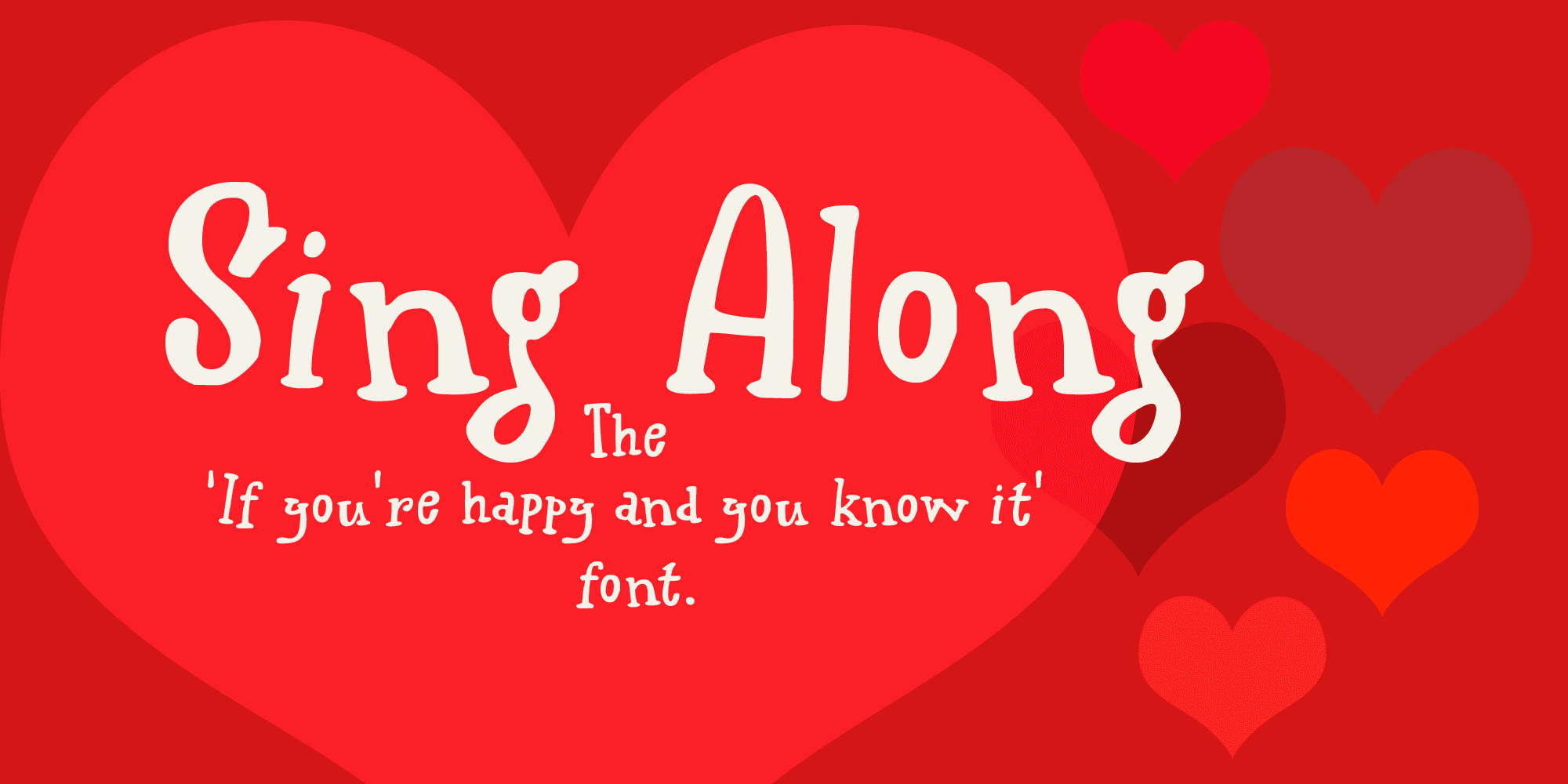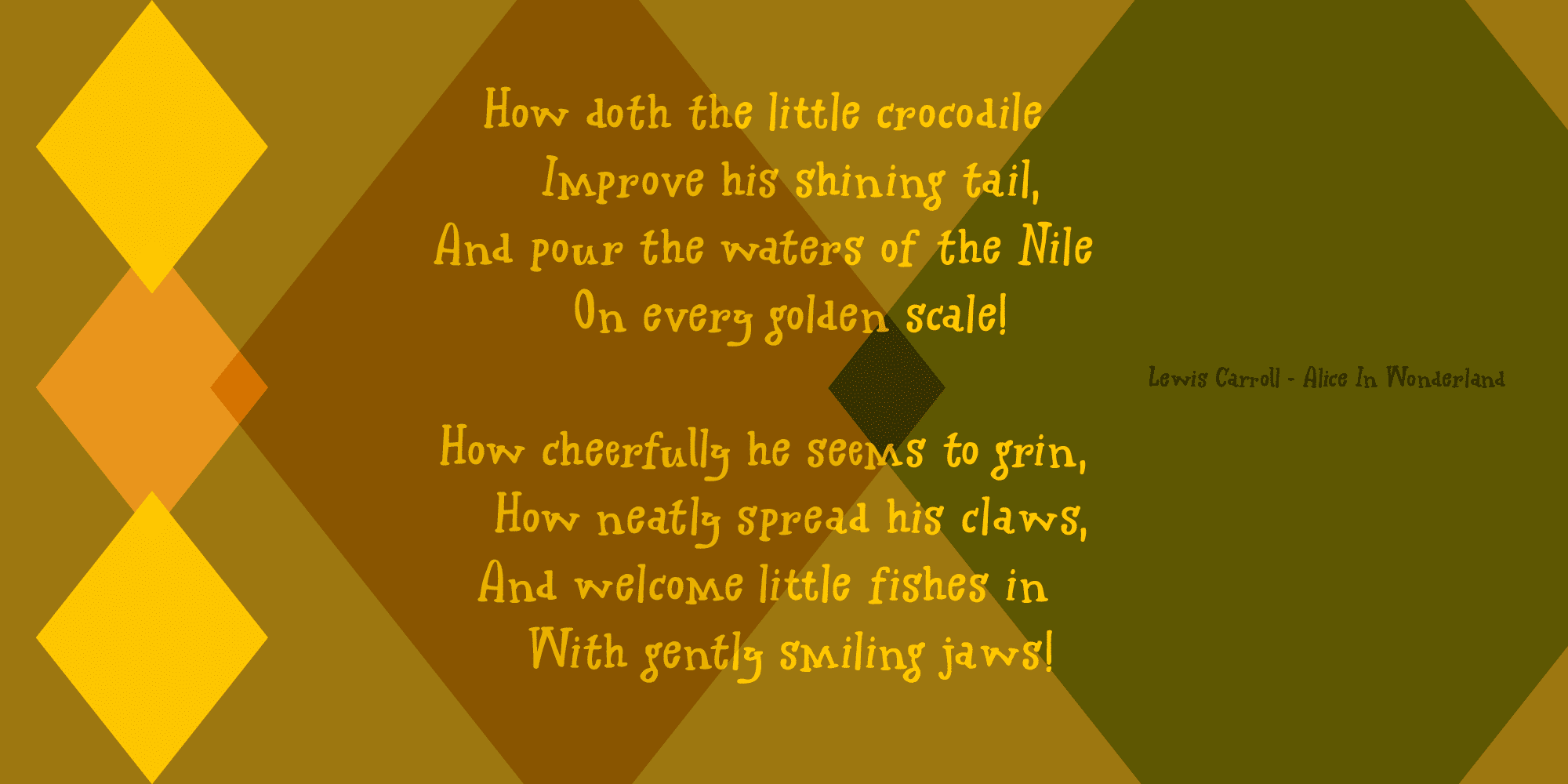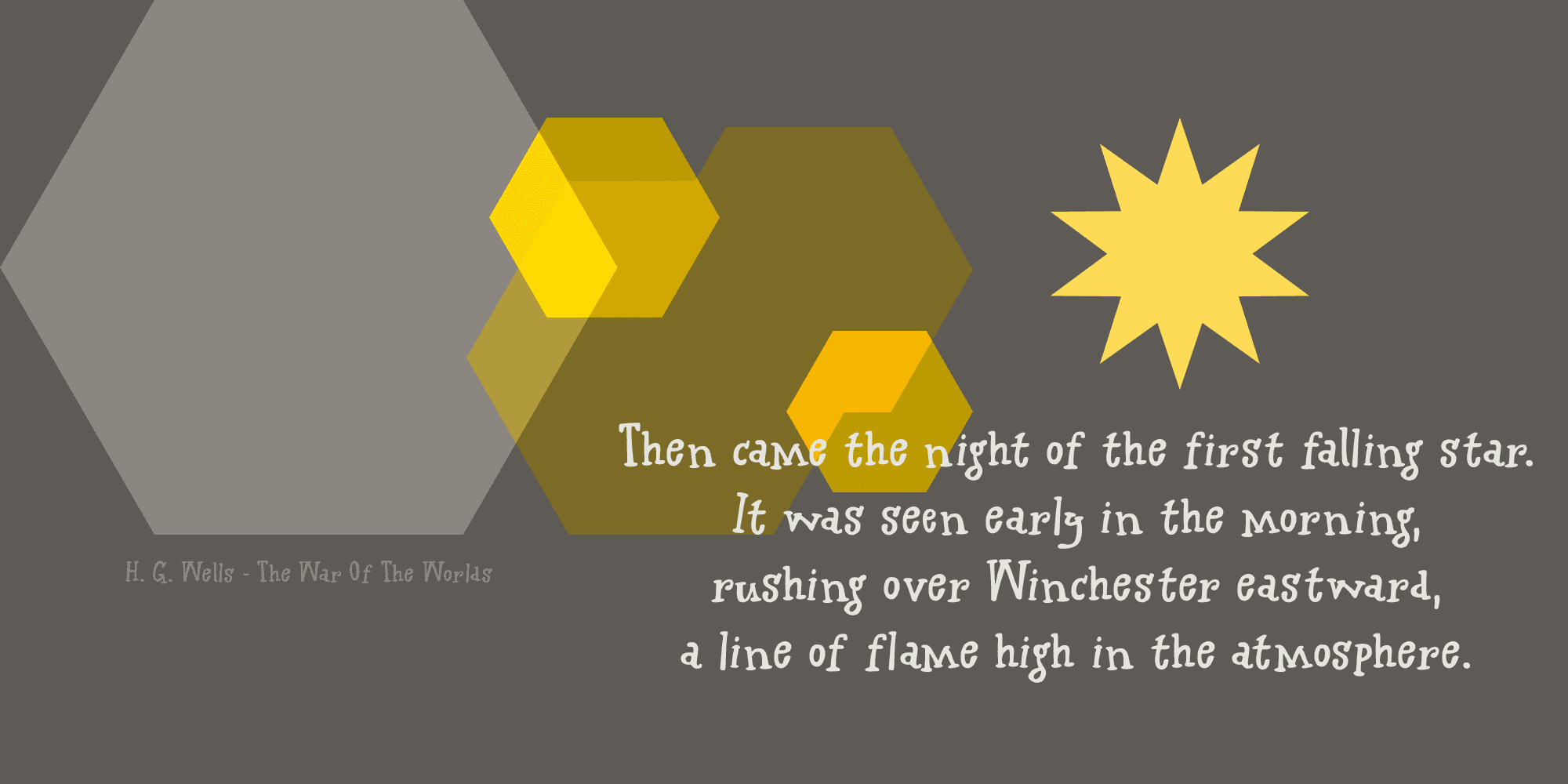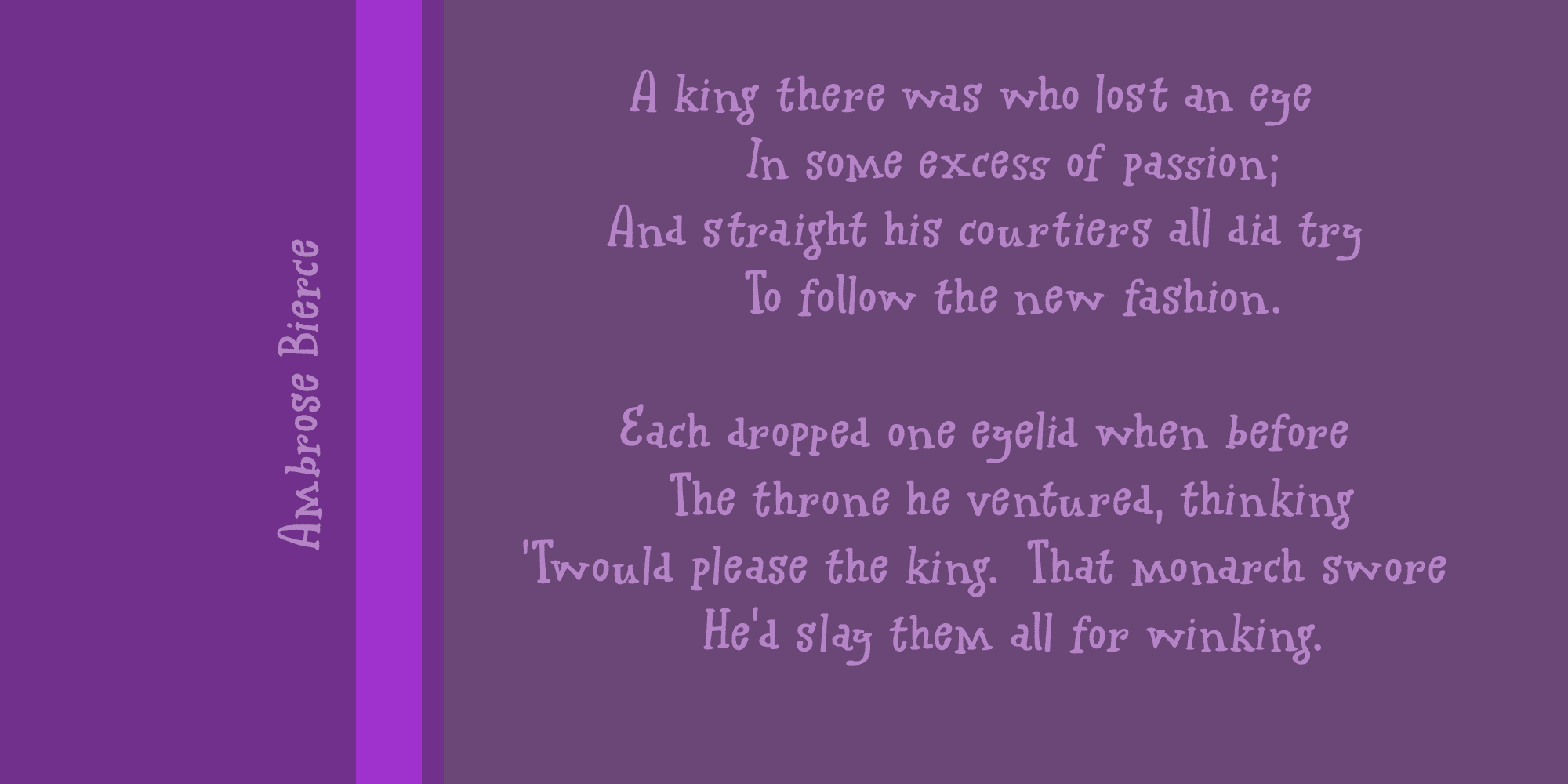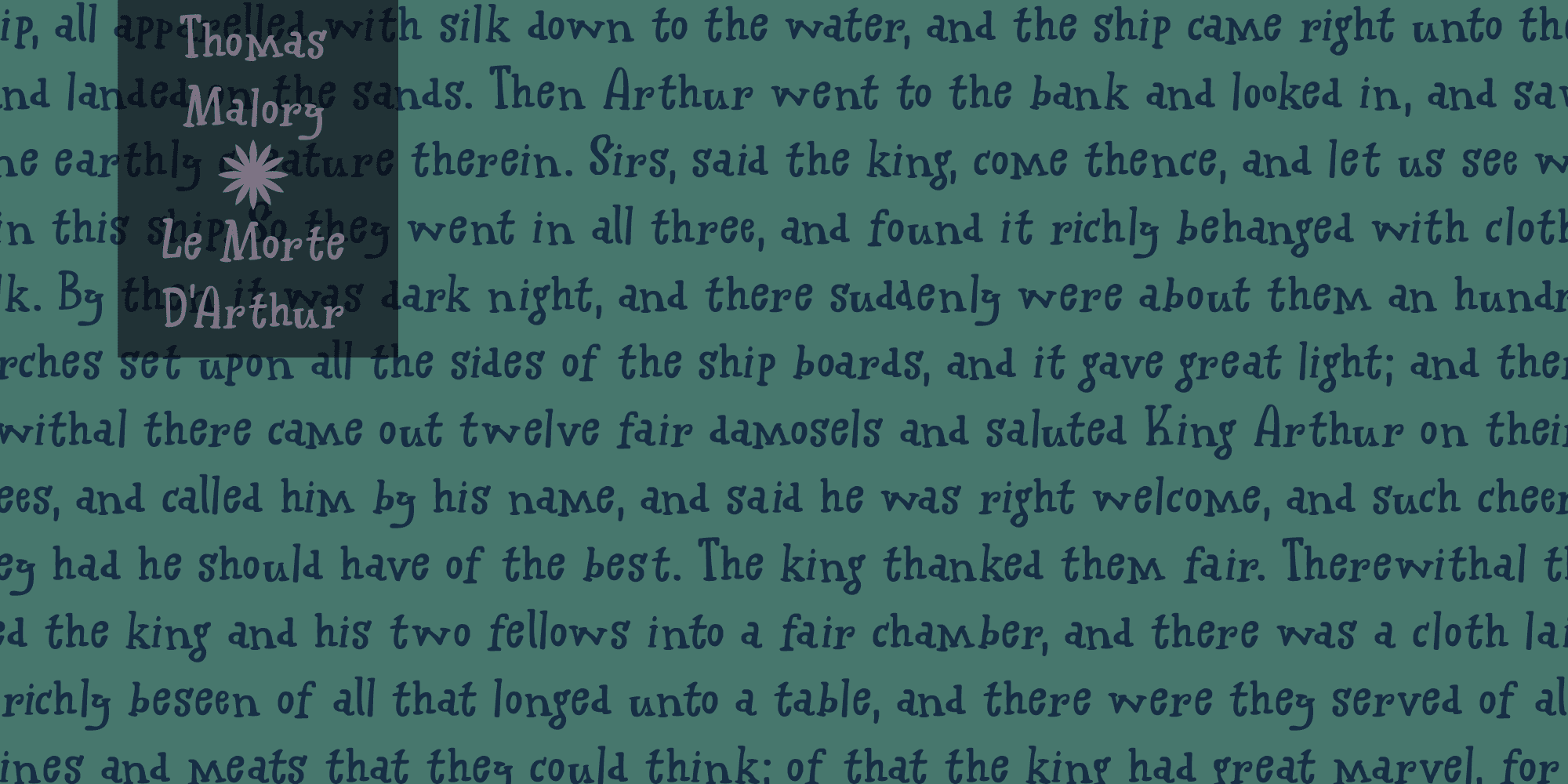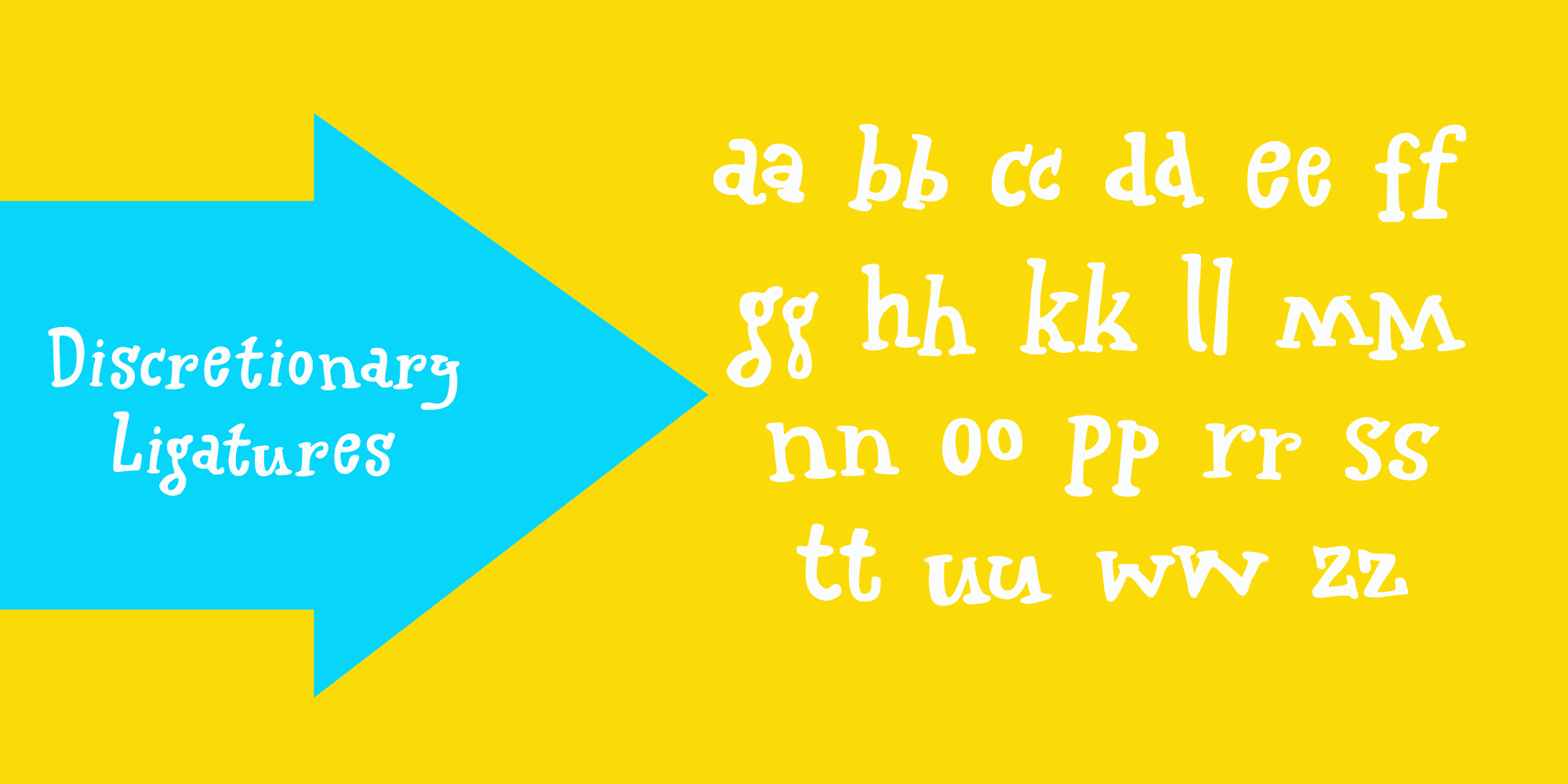
It inspired me to create this particular font with this particular name.
Sing Along is a happy, wobbly, kitschy font that comes with a bit of ‘over-the-topness’, a few personality issues and an unsteady gait. Needless to say, it is politically incorrect, but that, my friends, is not necessarily a bad thing.